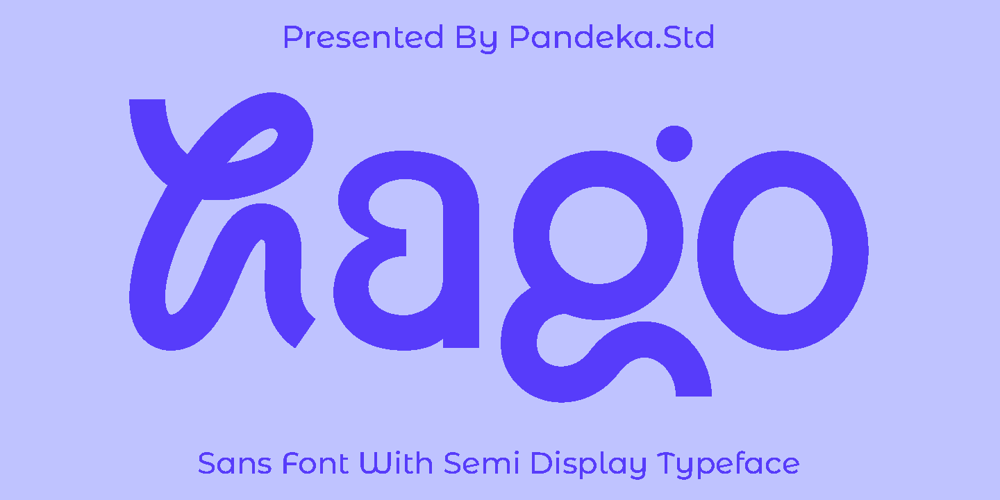
Hago
Hago font
Hago Font Family was designed by Sagara Nararya and published by Pandeka Studio. Hago contains 2 styles and family package options. Hago is a casual sans that is the perfect combination of strength & play.With a stunning, strong uppercase sans and a more playful loopy sans, you have the flexibility to mix & match to create the perfect combination.Simply type in uppercase or lowercase to switch from strong sans to playful loops.Features: Hago Main Files Instructions (Access special characters in all apps, even in Cricut Design) Accessible in Adobe Illustrator, Adobe Photoshop, Microsoft Word even Canva! PUA Encoded Characters. Fully accessible without additional design software Feel free to follow, like and share. Thanks so much for checking out my shop!Pandeka Studio